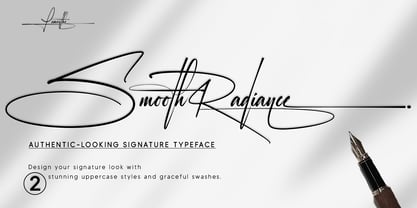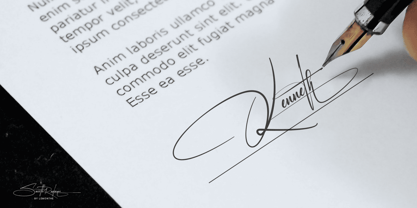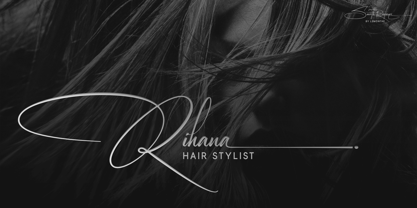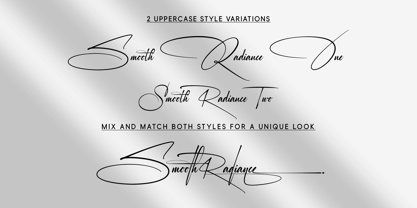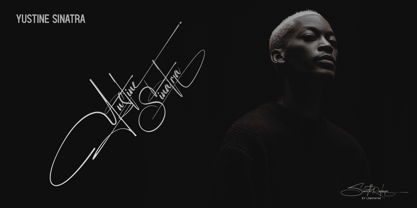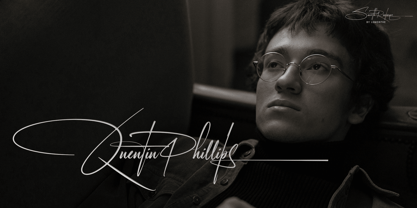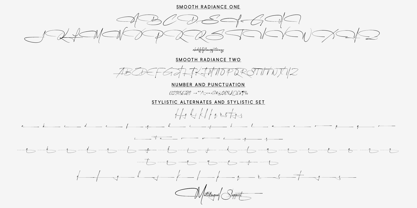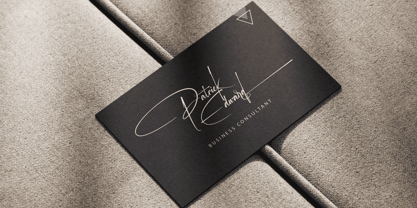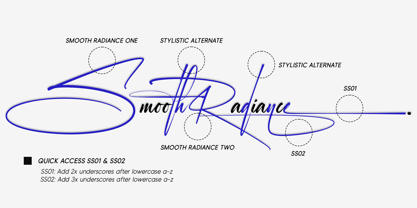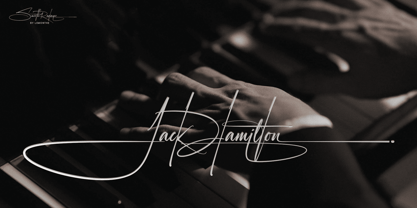
Smooth Radiance
by Lemonthe
The Smooth Radiance Font Family was designed by Dwi Ahidian and published by Lemonthe. Smooth Radiance contains 2 styles and family package options. More about this family
Smooth Radiance is a signature font with a natural and elegant handwritten style. It features two uppercase variations, along with several stylistic alternates and sets, giving you flexibility to create a unique and polished signature look. This font is ideal for logos, branding, wedding invitations, and printed materials, adding a handcrafted and professional feel to your designs.
"Lemonthe is a type foundry operated by Dwi Ahidian, a letter enthusiast who enjoys calligraphy and loves experimenting with letter forms. Lemonthe provides a captivating collection of typefaces, each carrying a creative and unique experimental touch, meticulously crafted by hand. Dedication to detail ensures that some typefaces emanate a deep and serious aesthetic, while others showcase a more playful and creative side."